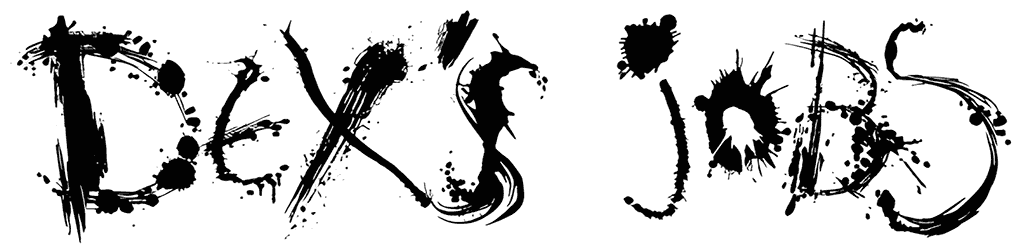
Black Order Font
If you want to design your own theme for Halloween posters or invitations without spending a lot of time, browse Black Order. Drops of blood are sprinkled on the letters of this horror font, and its sharp edges create a razor-like state in the mind.
This dripping font is what you need to diversify your scary projects and can create an adventurous mood in any phrase without lowercase letters.
Designed by: Woodcutter